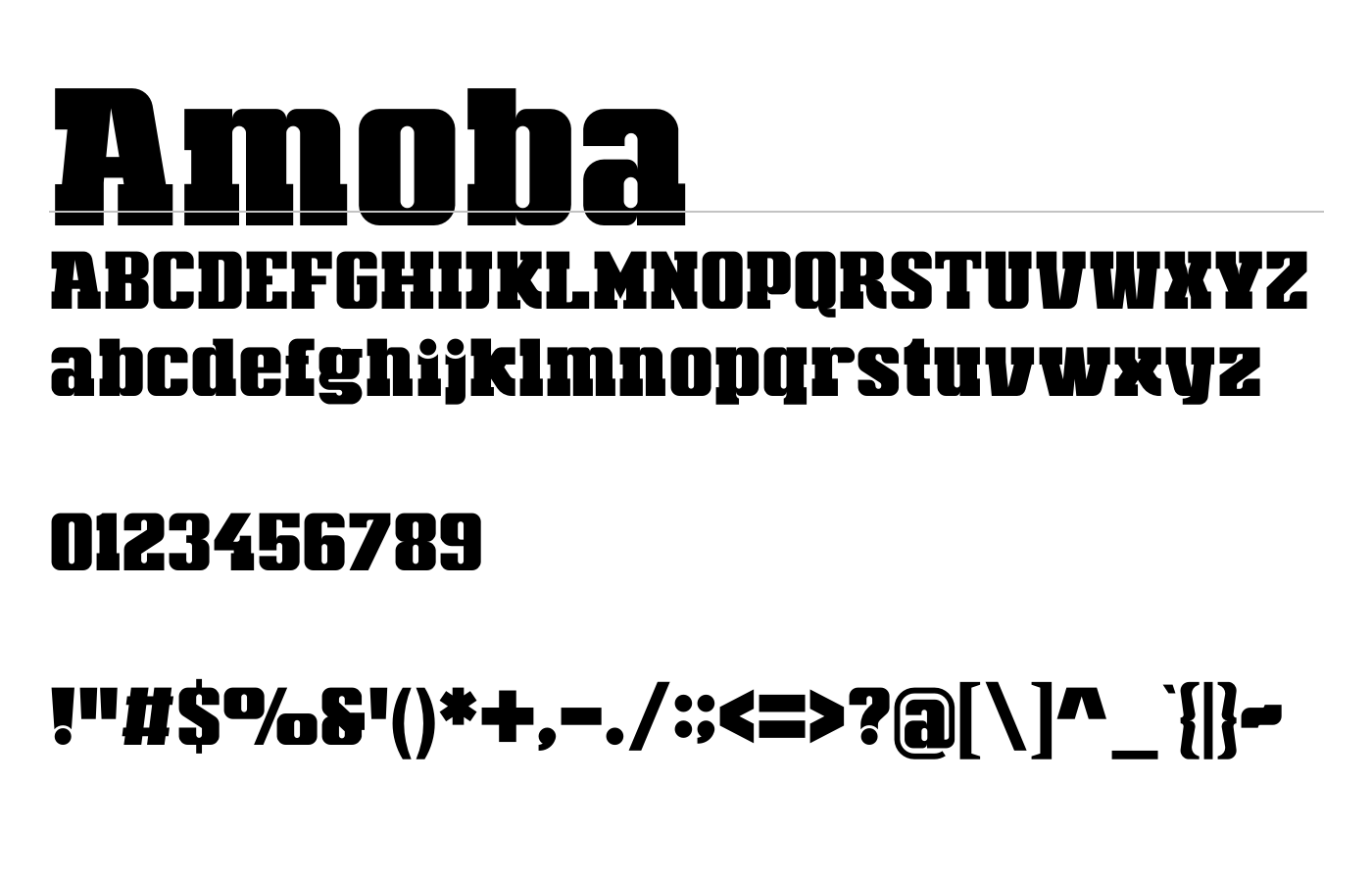
Amoba is a bold slab serif font with strong, blocky letterforms and a high contrast between thick and thin strokes, giving it a robust and impactful presence. Its sturdy, squared serifs and uniform width make it ideal for commanding headlines, logos, or branding that needs a vintage yet powerful feel. This typeface works especially well in designs requiring a bold, confident style that stands out in posters, packaging, and editorial layouts.
Amoba Font